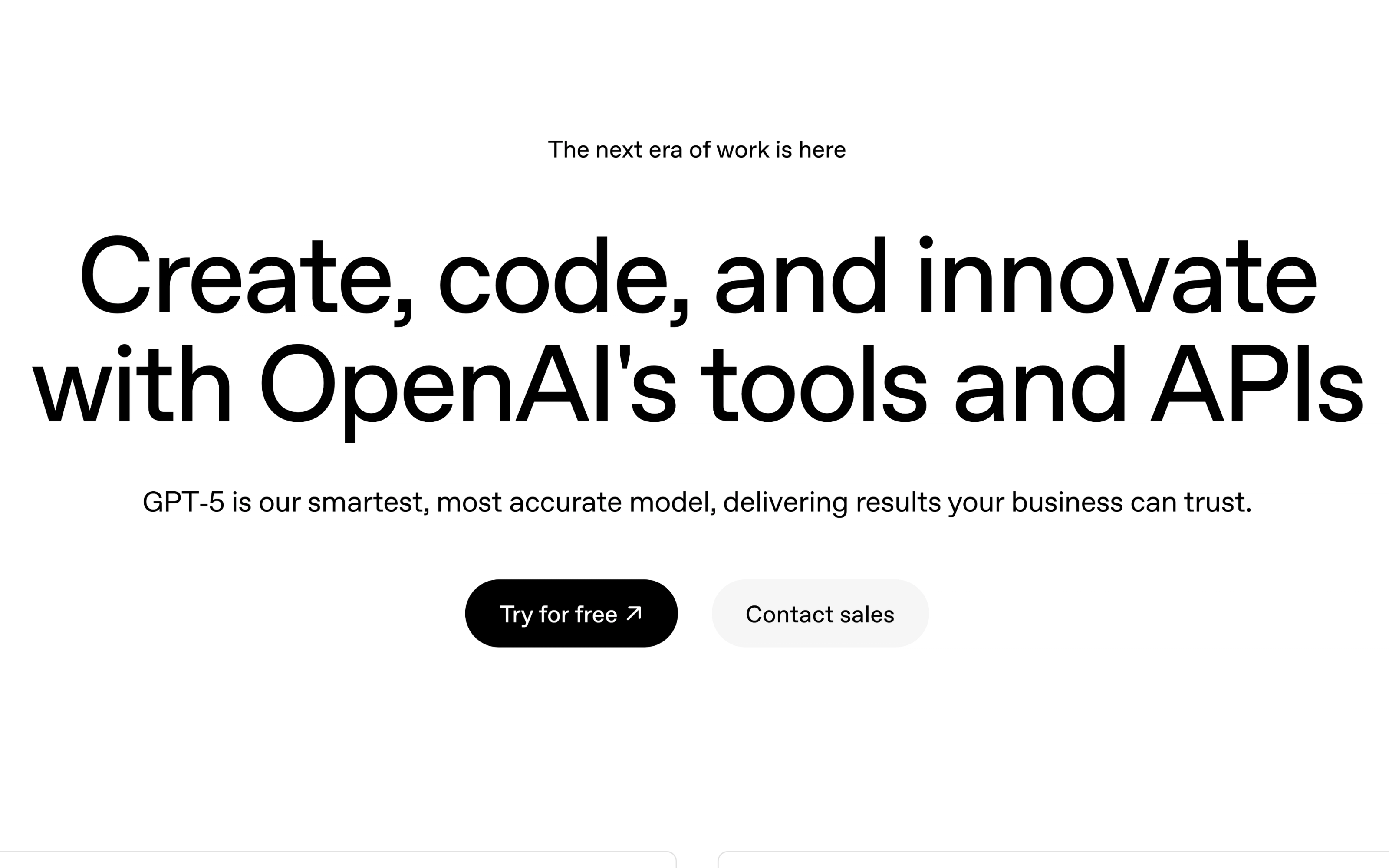
Geometric
Custom
2024
Veit Moeller, Shannon Jager
Custom version of Favorit from Dinamo. A lot of small adjustments made such as changing defaults to a more common y with slanted terminals instead of Favorit's default straight terminals and new wider "a"